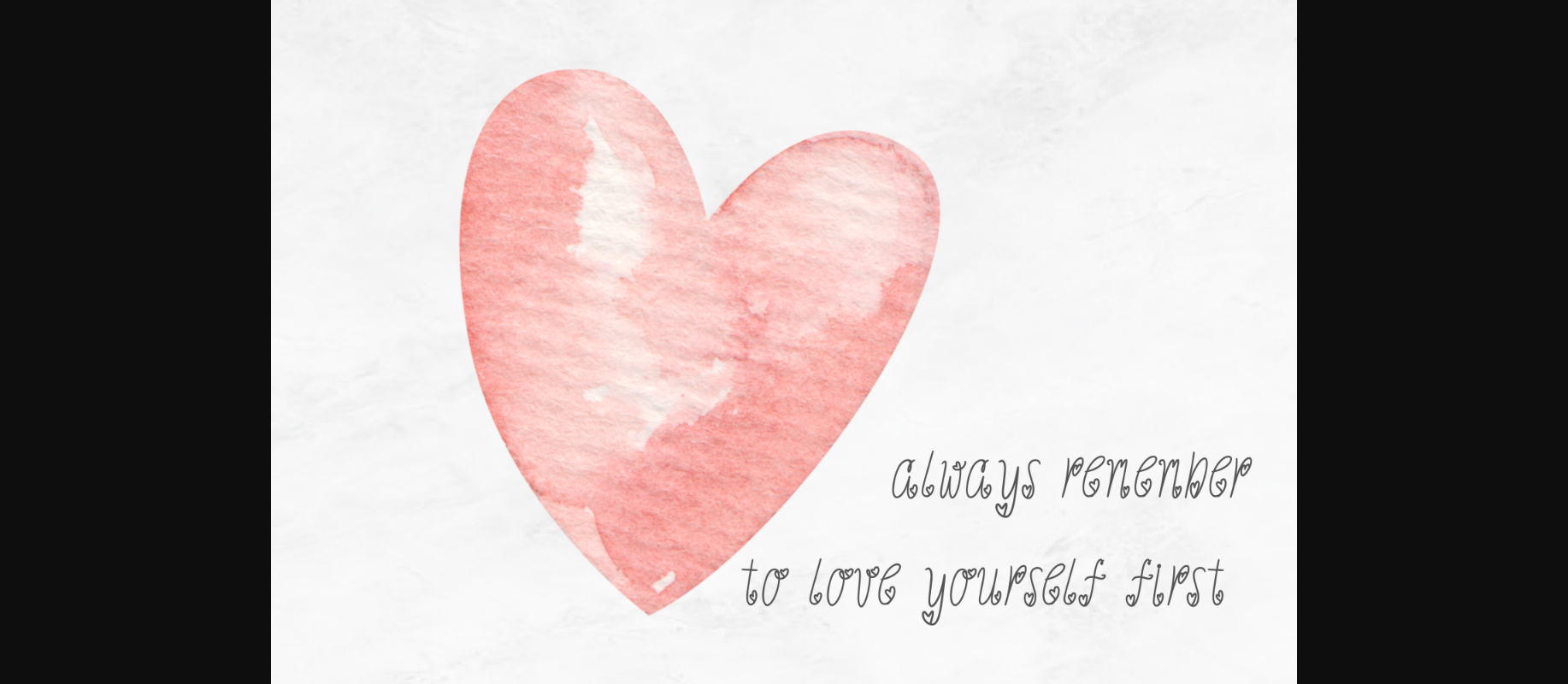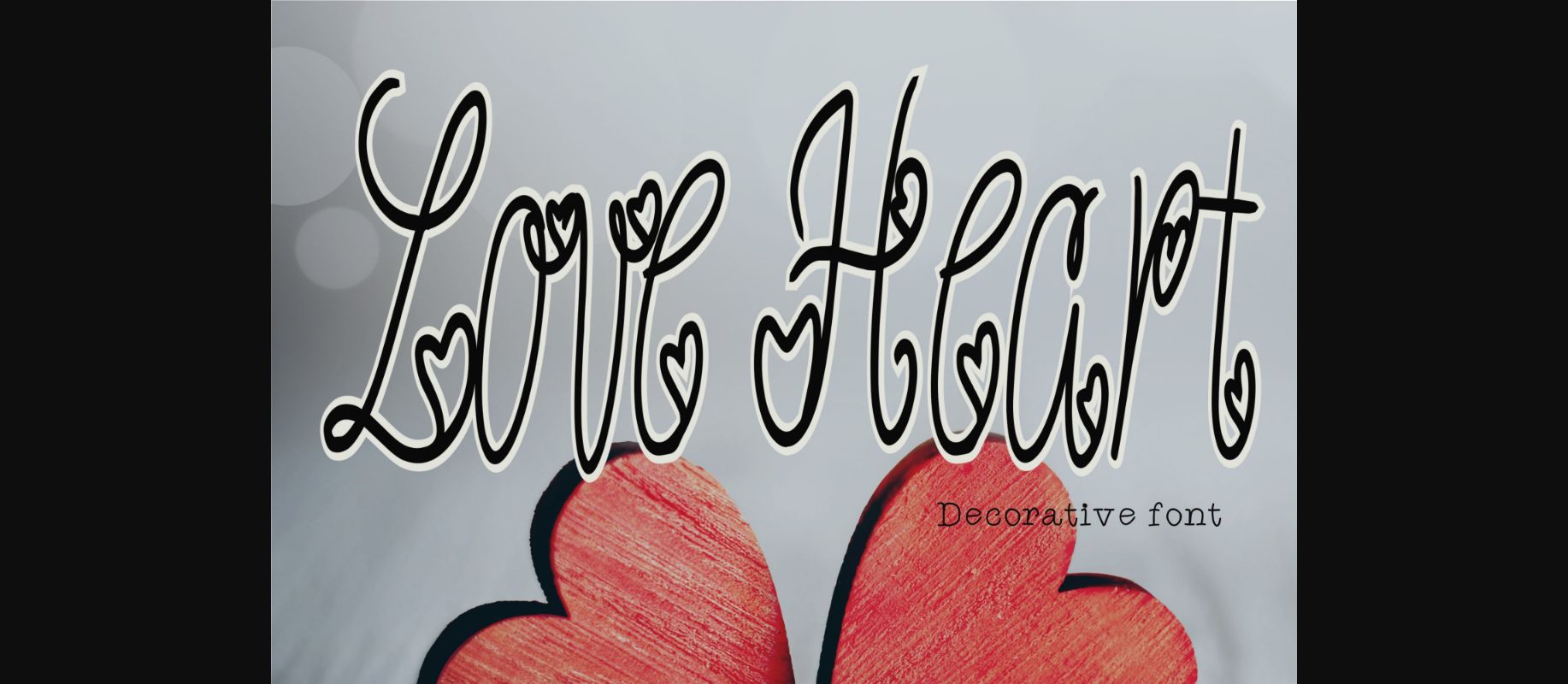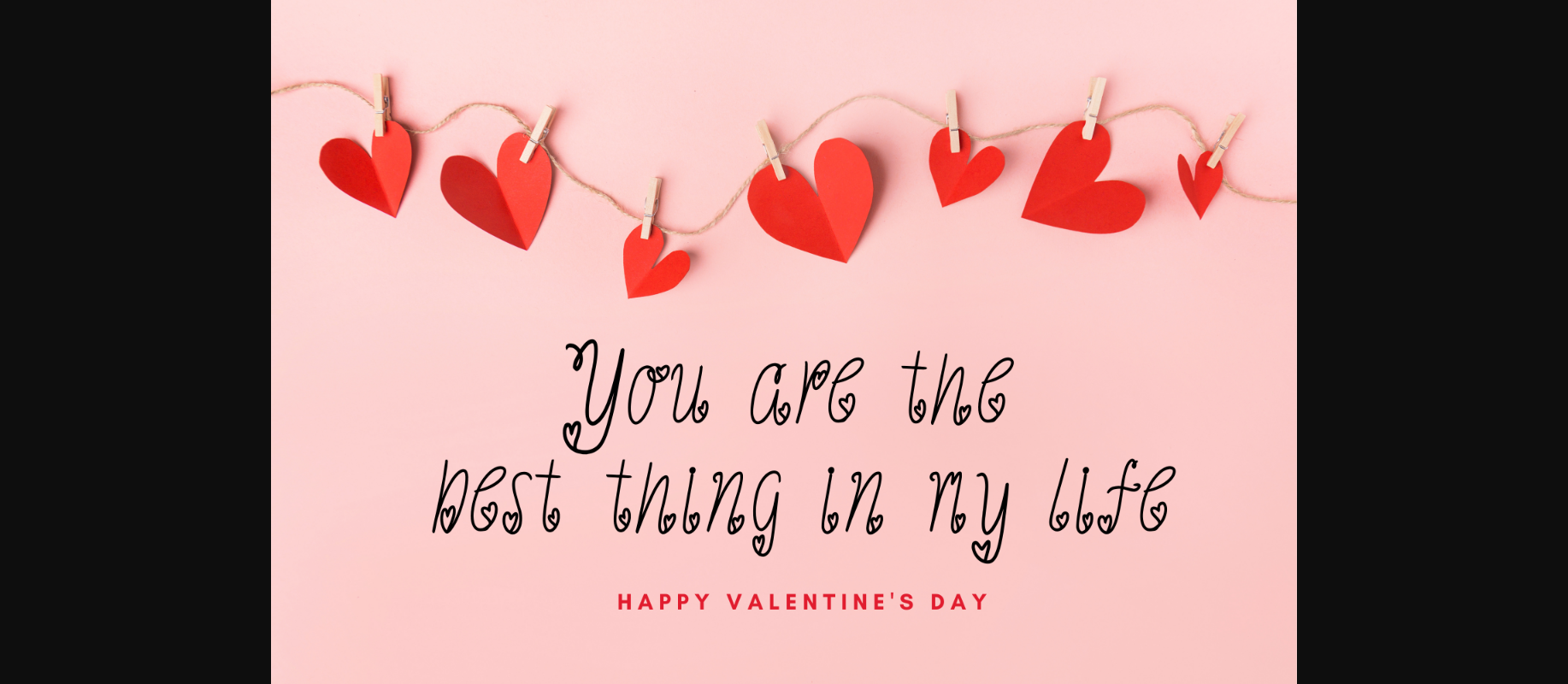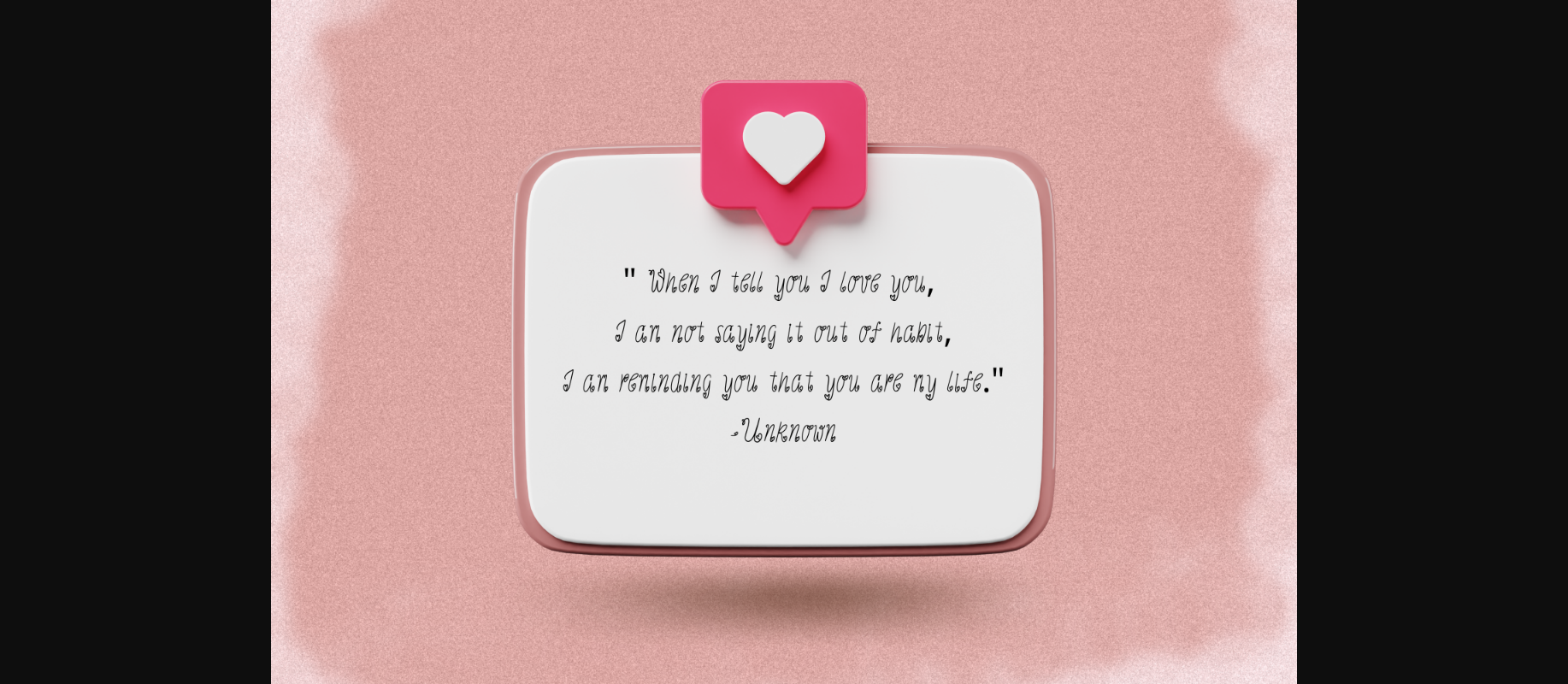
About Love Heart Font
Love Heart is a cute and lovely handwritten decorative font. It embodies playfulness and authenticity and is the perfect choice for decorations for weddings, parties, or any children’s activity projects.